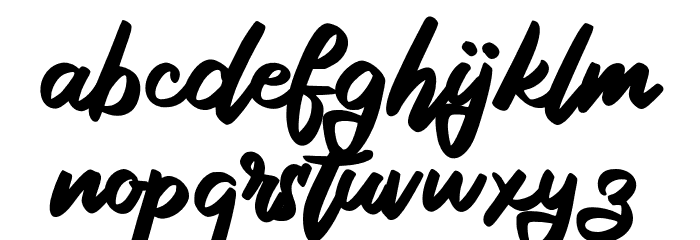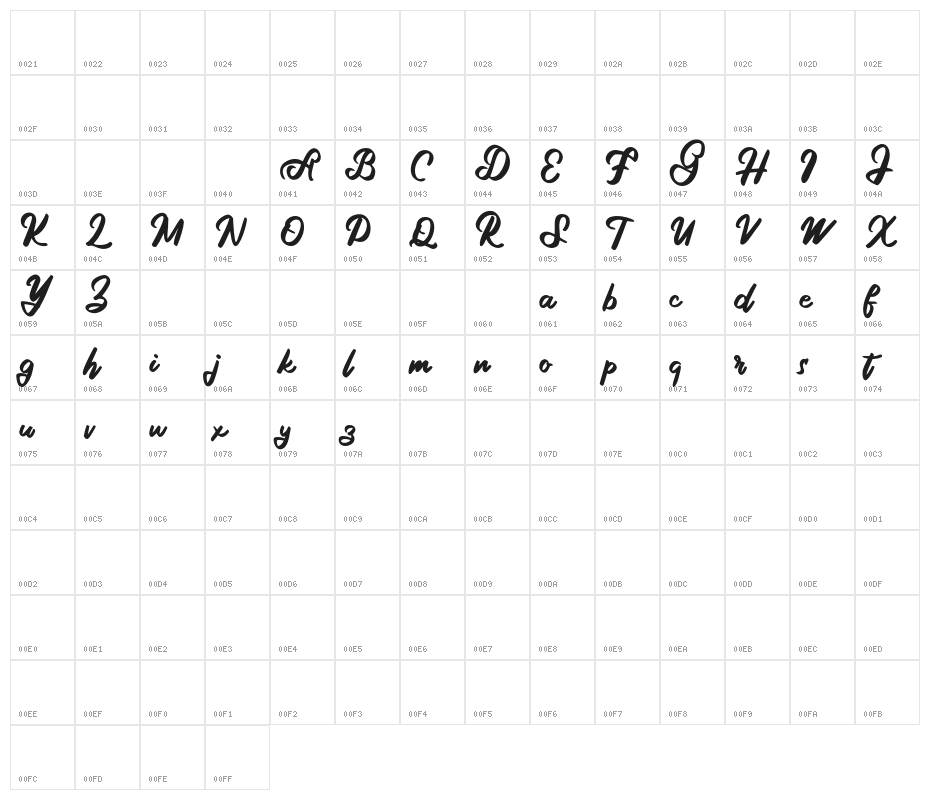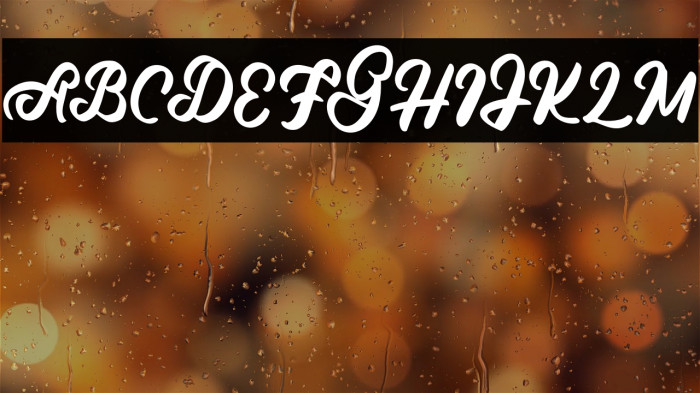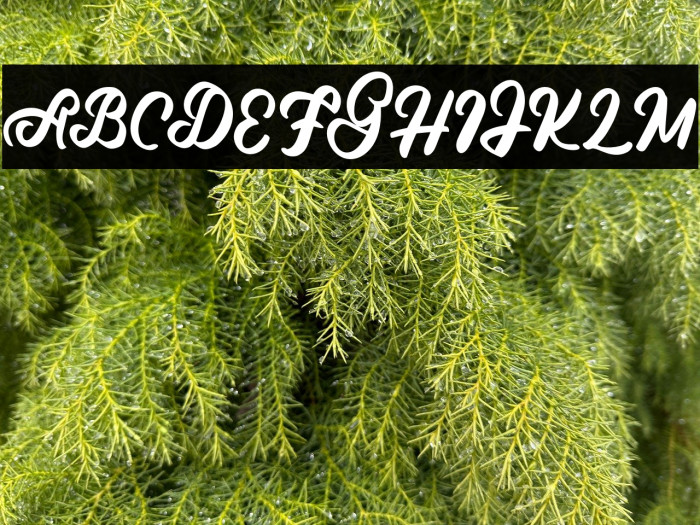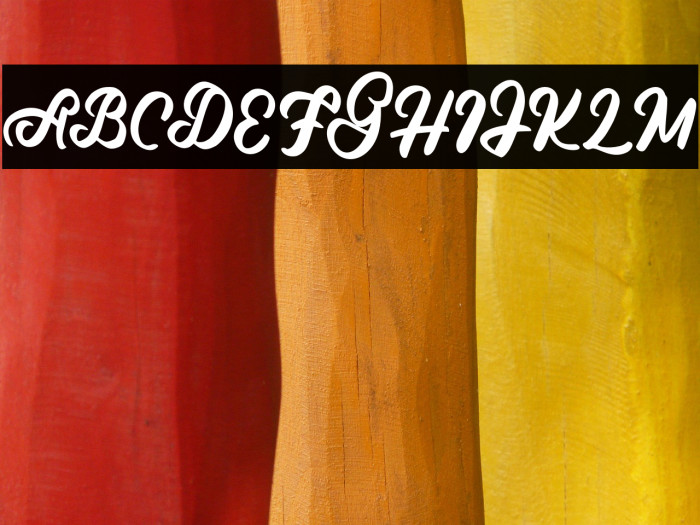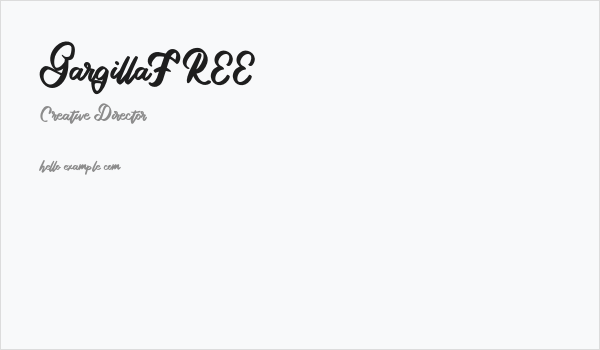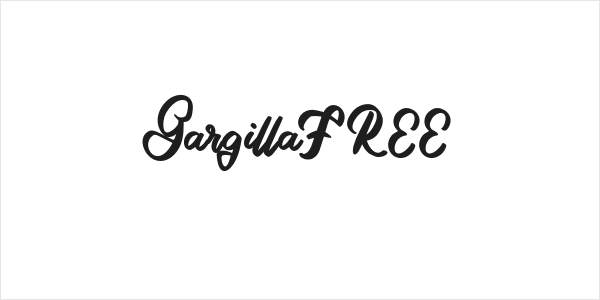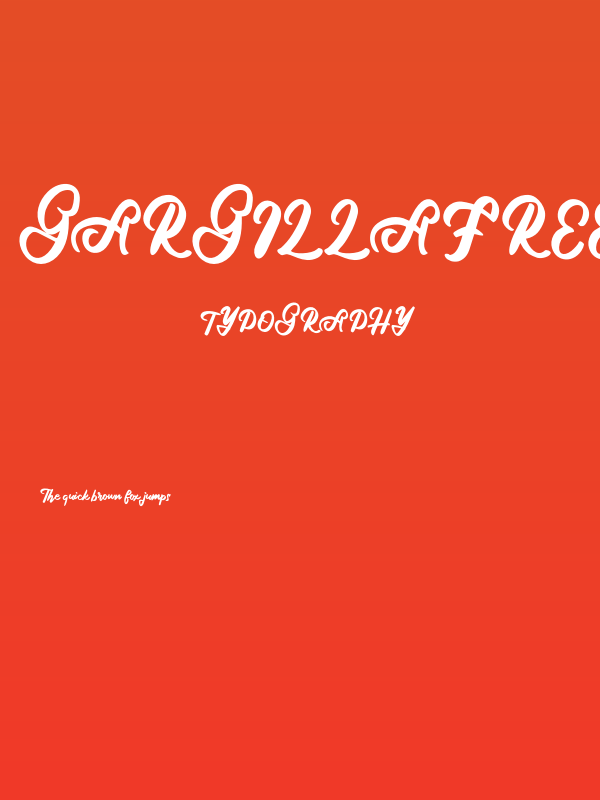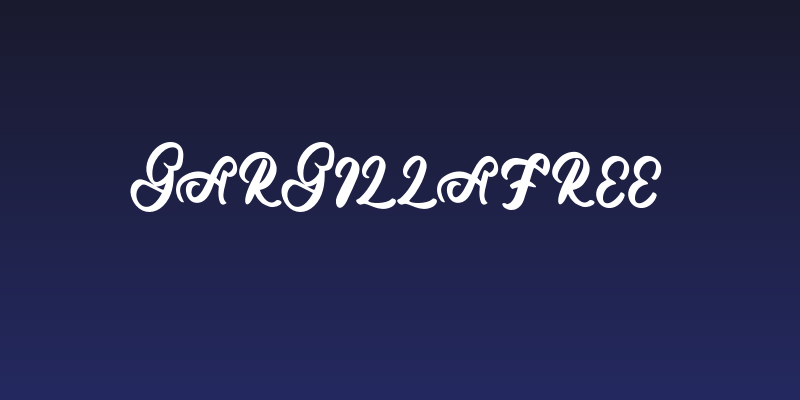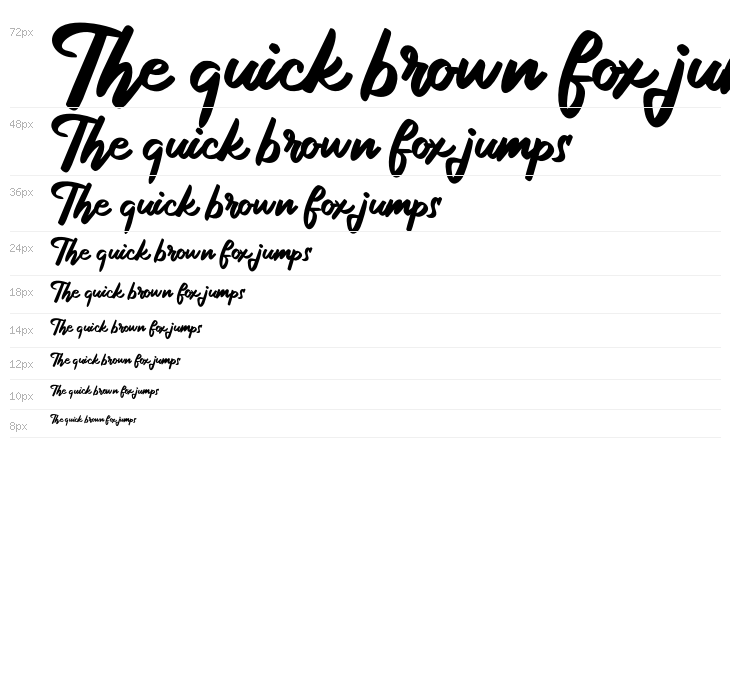
GargillaFREE Font
This font features a bold and expressive script style with a flowing, cursive design. The characters are interconnected, creating a sense of movement and fluidity. The uppercase letters are elegantly curved, while the lowercase letters maintain a consistent rhythm and balance. The strokes are thick, contributing to a strong visual impact, and the overall appearance is both playful and sophisticated. This font is ideal for projects that require a personal touch, such as invitations, branding, or creative headlines. The special characters are seamlessly integrated, maintaining the font's cohesive style.
A bold, expressive script font with flowing, interconnected characters.
- Font: GargillaFREE
- Proposed Projects: Ideal for invitations, branding, creative headlines, and personal projects.
- Category: Script
- Character Spacing: Tight
- Use Case: Headlines, Logos, Invitations